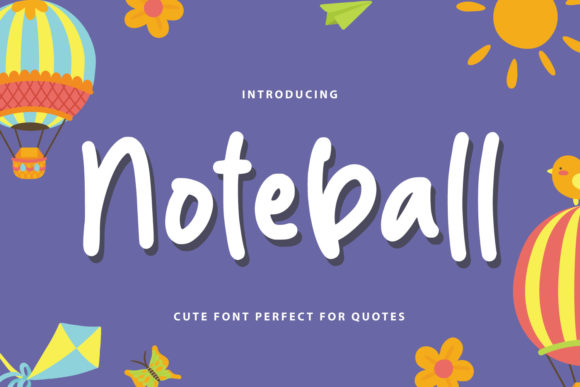
In a world where written words come to life, Noteball Font emerges as a captivating script, inviting you on a delightful journey through the realm of handwritten elegance. This playful and neat font, meticulously crafted by Typefar, is not just a collection of letters; it's an expression of creativity, an ode to beauty, and an extension of your imagination.
Picture this: a cartoon world bursting with color and laughter, where Noteball Font dances across the screen, bringing characters and stories to life with whimsical charm. Or imagine children's games filled with wonder and excitement, where the font's playful nature sparks imaginations and creates unforgettable moments.
Quotes, titles, brand names, book covers, posters – Noteball Font adds a touch of elegance and sophistication to any creation, making your designs shine with a unique personality. Its versatility knows no bounds, seamlessly adapting to a myriad of projects, each one infused with a touch of beauty and flair.
With Noteball Font, you're not just downloading a font; you're embracing an artistic revolution, transforming your digital creations into captivating masterpieces. Let your creativity soar, let your words dance, and let Noteball Font guide you on an enchanting journey of self-expression. Welcome to the realm of beauty, where imagination thrives and artistic dreams come true.